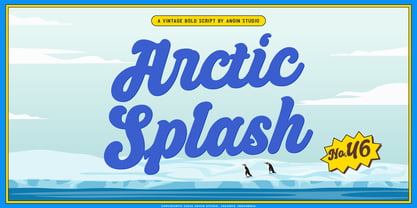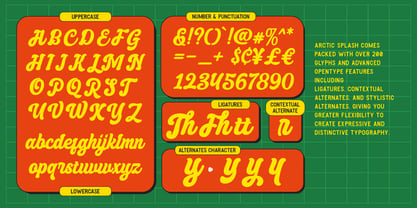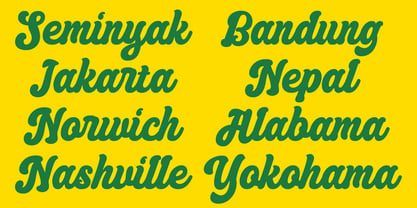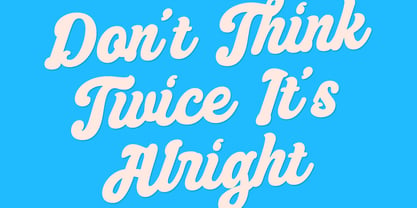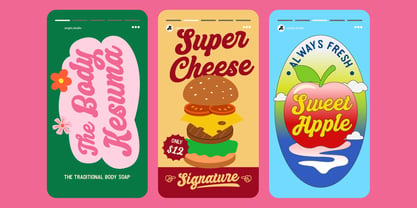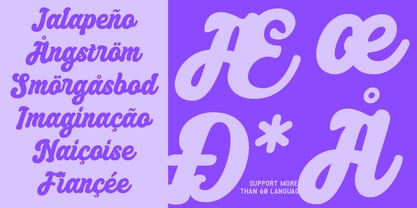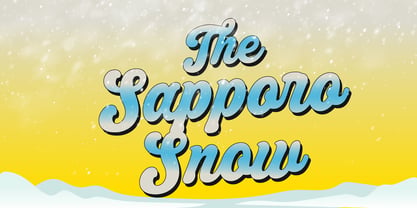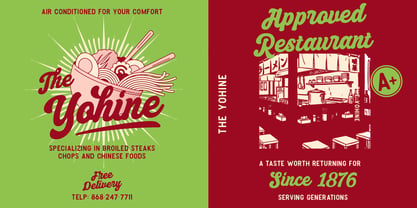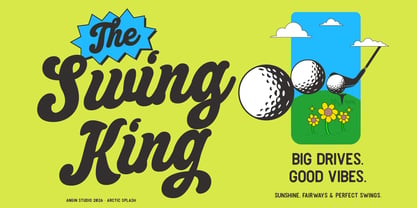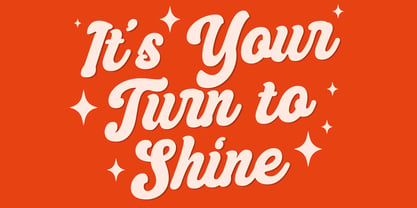
Arctic Splash
by Angin Studio
The Arctic Splash Font Family was designed by Ahmad Aswin, David Novrian and published by Angin Studio. Arctic Splash contains 1 styles. More about this family
Introducing Arctic Splash, a bold vintage script font inspired by classic packaging, and nostalgic advertising. With the smooth curves, chunky letterforms, and playful personality, Arctic Splash is designed to make your typography stand out and instantly grabs attention.
Whether you're creating branding, logos, posters, restaurant menus, apparel, packaging, social media graphics, sports designs, or retro-inspired merchandise, Arctic Splash delivers an authentic vintage feel while remaining clean, versatile, and easy to use.
Packed with over 200 glyphs, Arctic Splash includes a variety of OpenType features that help you create natural and eye-catching typography with ease. Mix and match the included ligatures, contextual alternates, and stylistic alternates to achieve a handcrafted, custom-lettered look in just a few clicks.
Designers: Ahmad Aswin, David Novrian
Foundry: Angin Studio